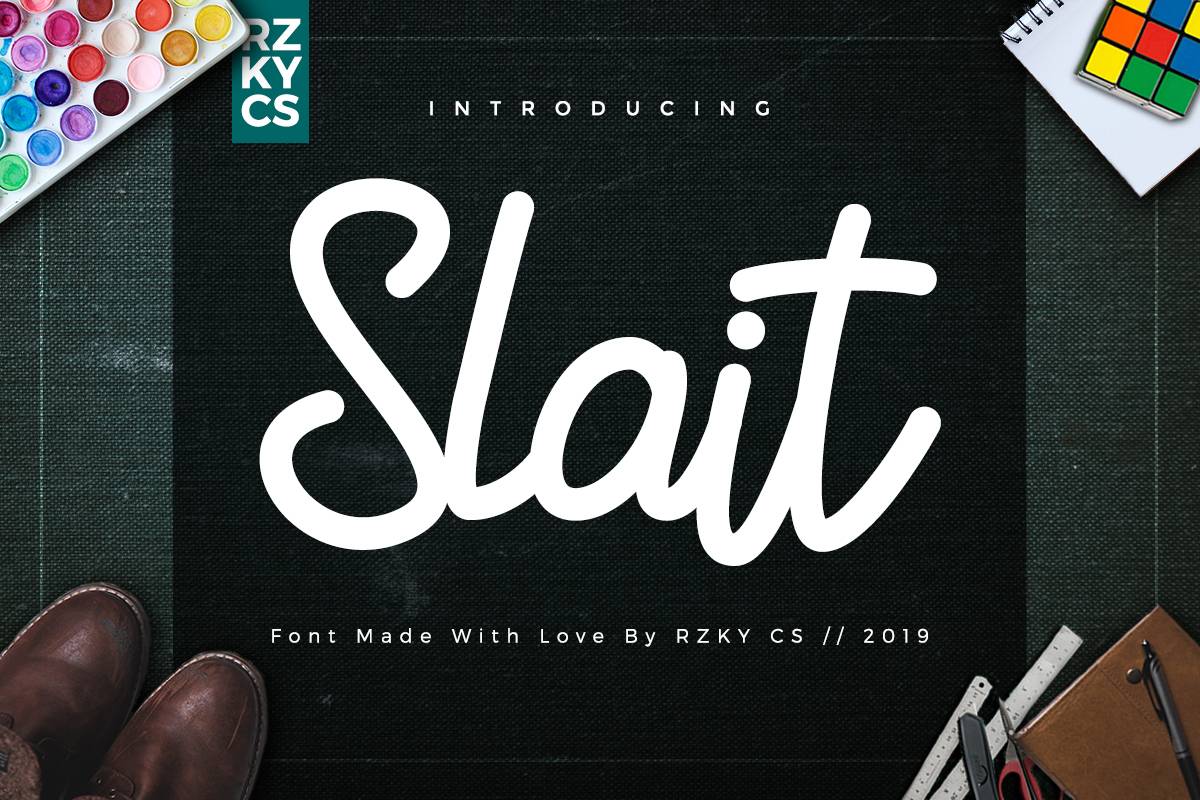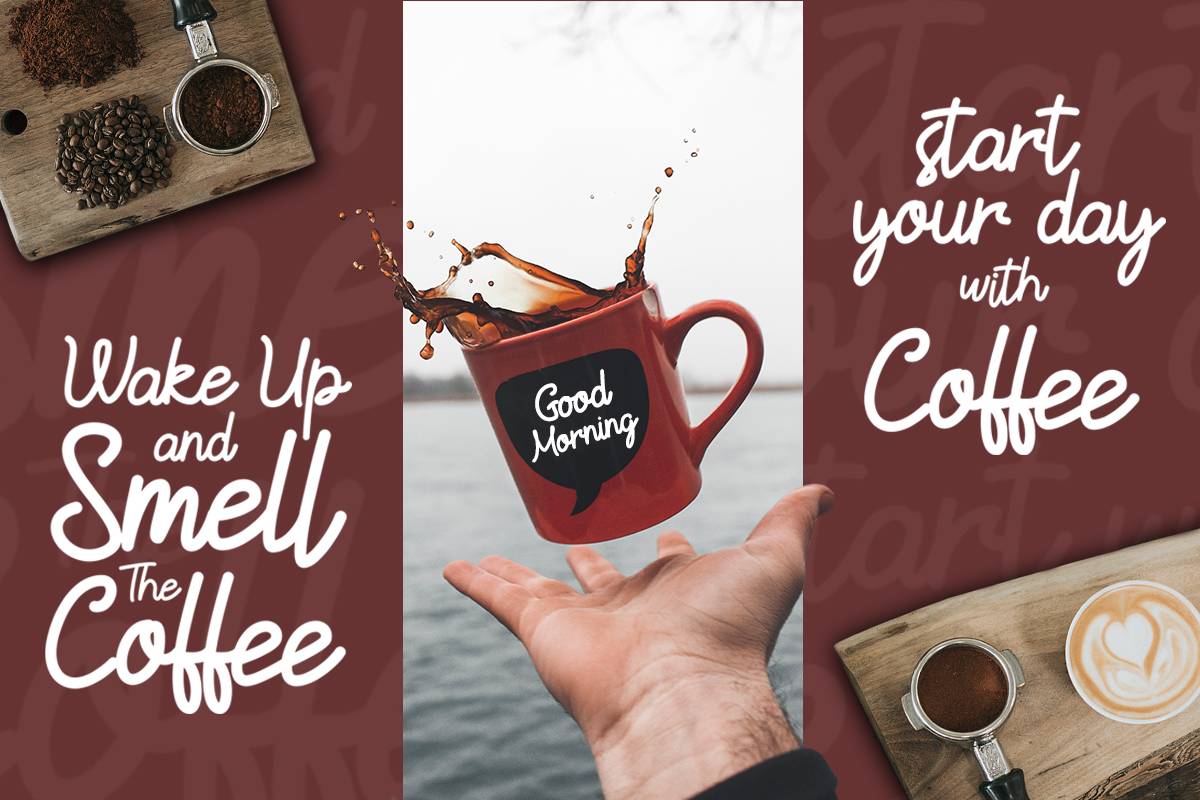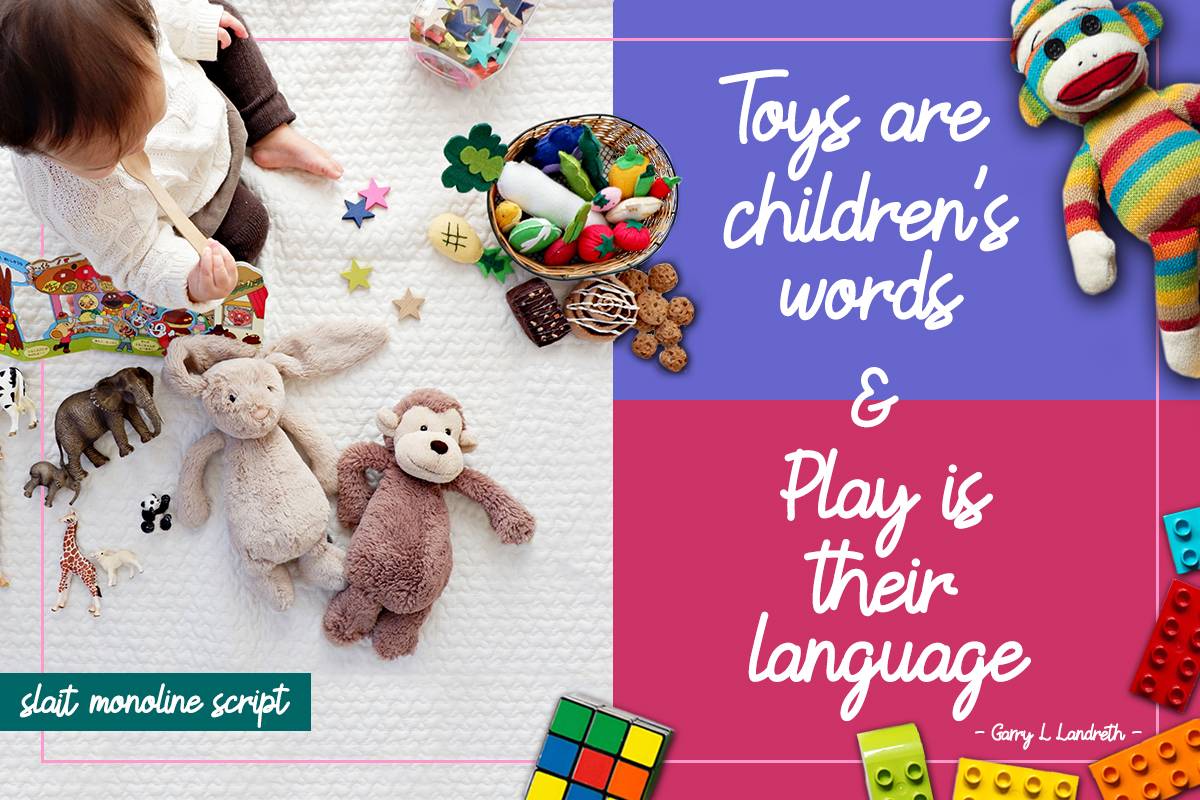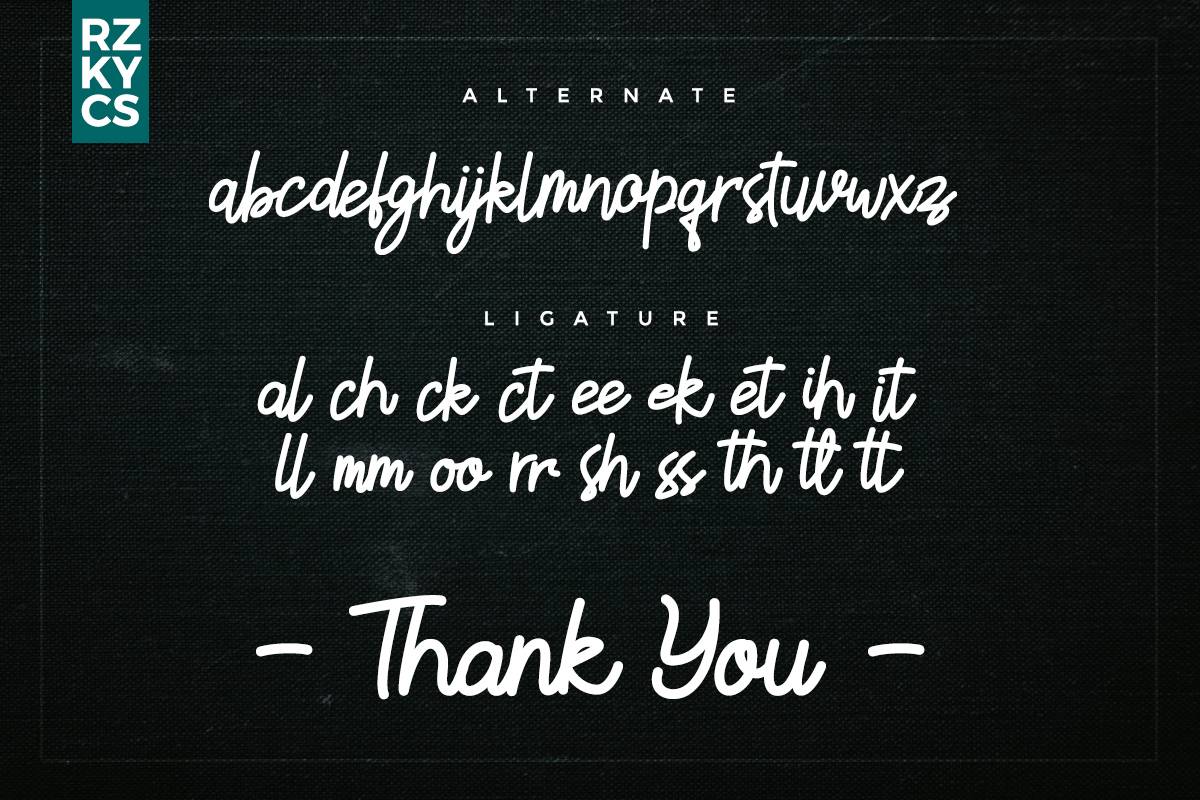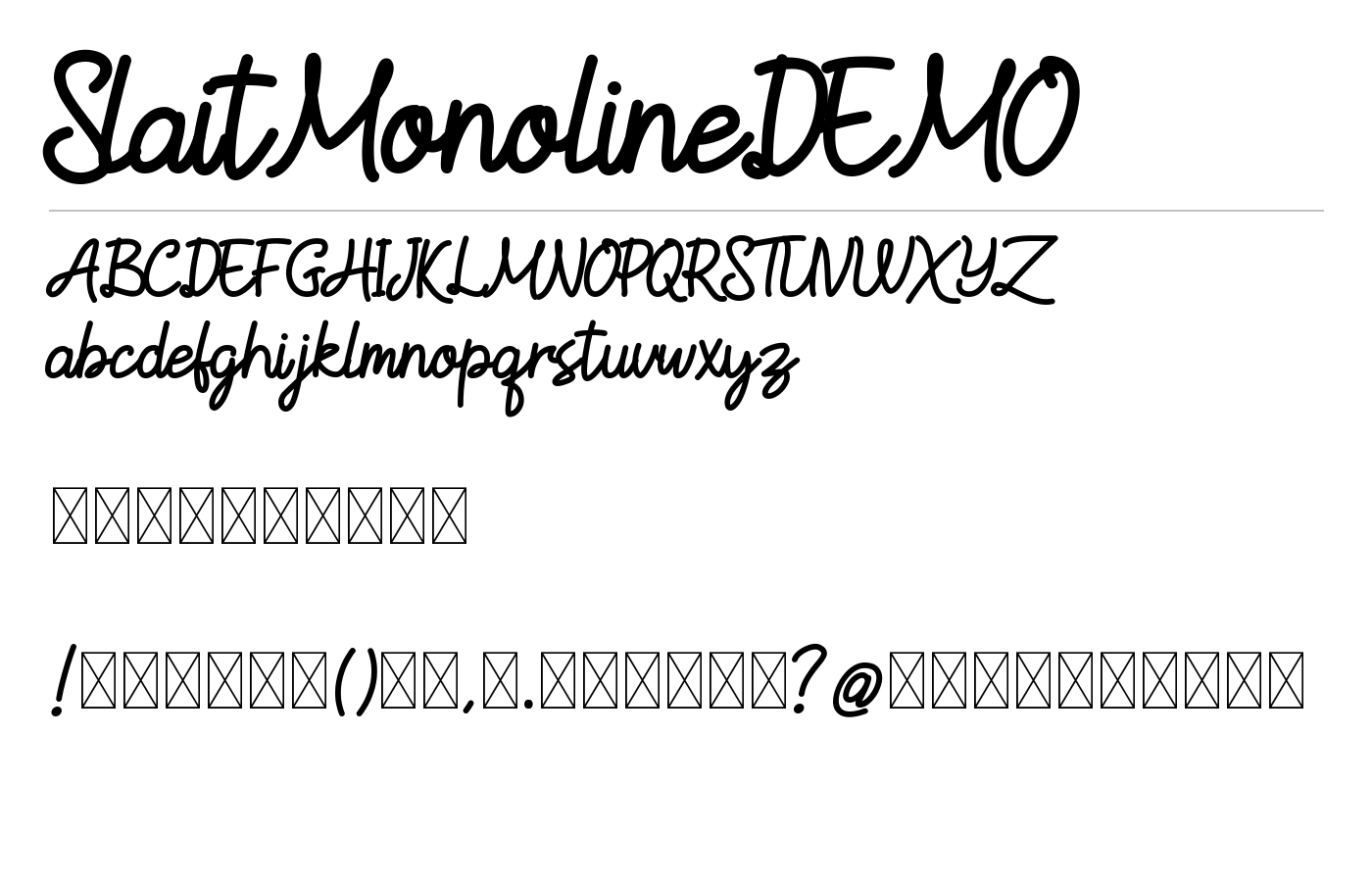
Slait Monoline is a casual and playful script font characterized by its smooth, single-weight strokes and handwritten style. Its rounded, flowing letterforms create an inviting and friendly vibe, making it perfect for informal branding, greeting cards, and creative projects that need a personal touch. This font works best in headlines, logos, or social media graphics where a warm, approachable personality is desired.
Slait Monoline Script Font
About Slait Monoline Script Font
| Font family | Slait Monoline Script Font |
| Designer | Rizky Chandra Sofyan |